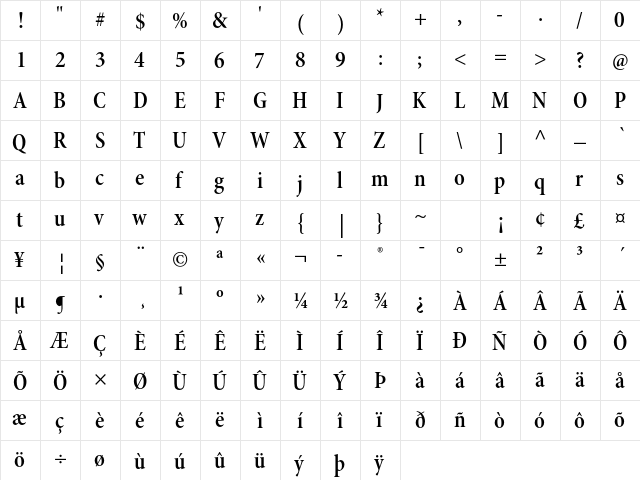
Minion Pro Semibold Cond Subhead
Semibold Cond Subhead ·  Robert Slimbach ·
Design Context for Minion Pro Typeface
Minion Pro offers clean, dependable letterforms without strong stylistic allegiance, making it a practical choice for designers who need flexibility. Its bold stroke weight gives it real presence on the page. Its narrow stance lets it pack a punch even in space-constrained designs.